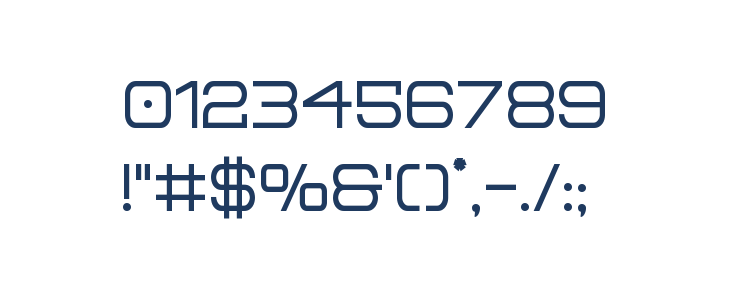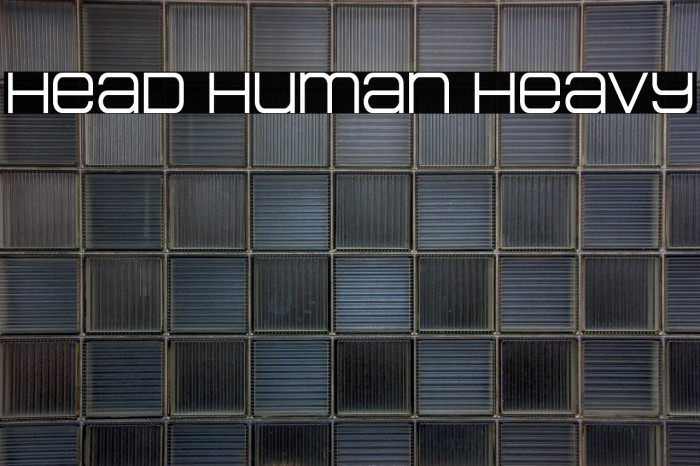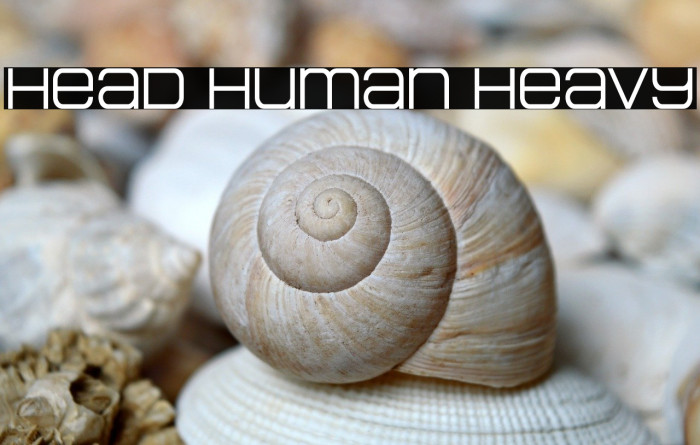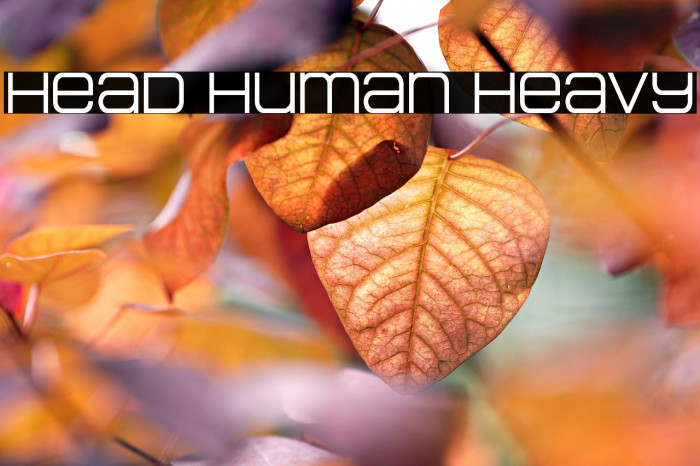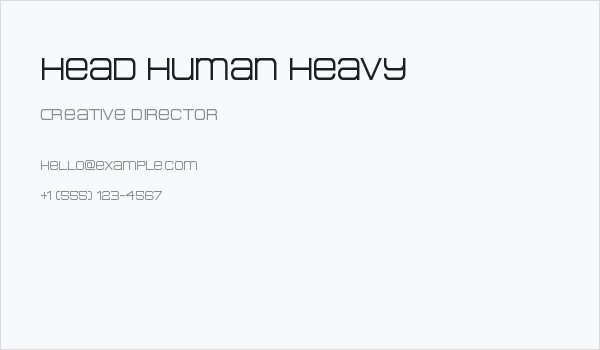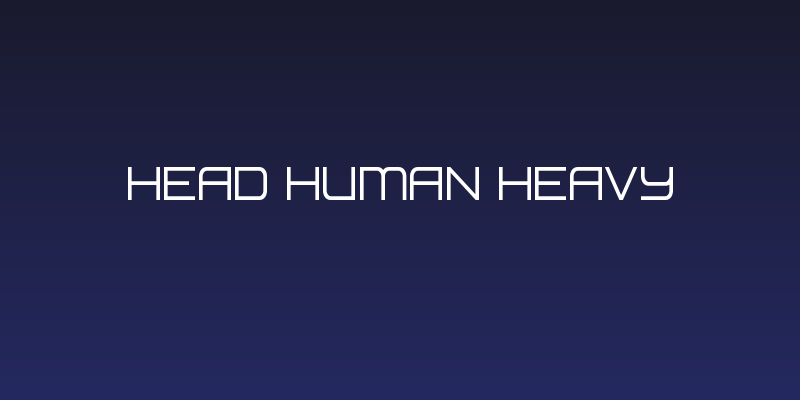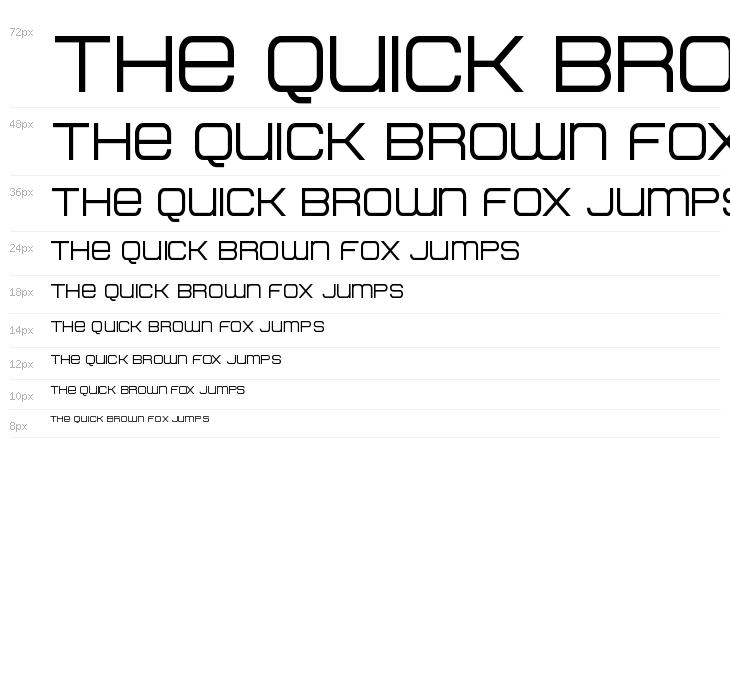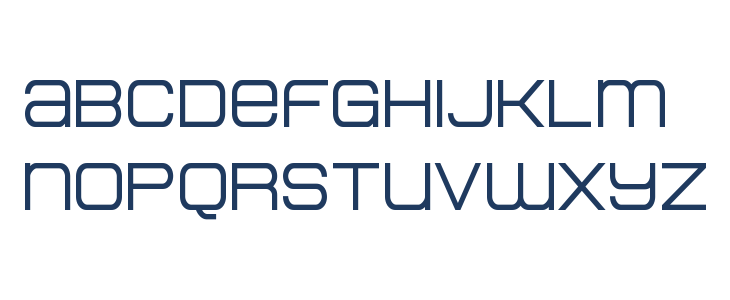
Head Human Heavy Font
Head Human Heavy Description
This font features a modern, geometric design with a clean and futuristic aesthetic. The characters are constructed with consistent stroke widths, giving it a uniform appearance. The rounded edges and open counters add a touch of softness to the otherwise technical look. The uppercase and lowercase letters maintain a similar height, enhancing readability and creating a cohesive visual flow. The numerals and special characters are designed to match the overall style, ensuring versatility across different applications. This font is ideal for projects that require a contemporary and sleek look.